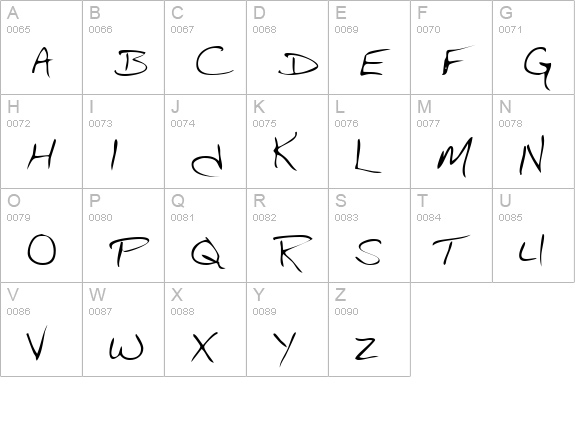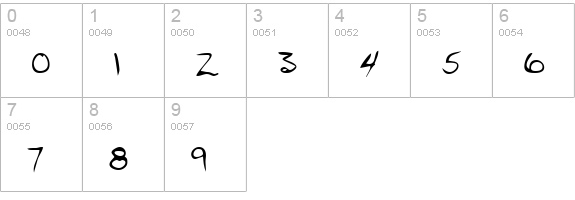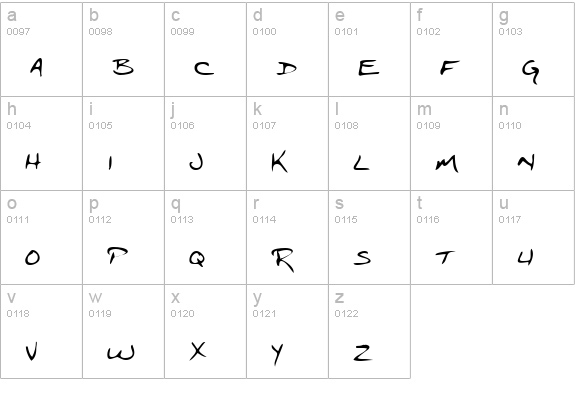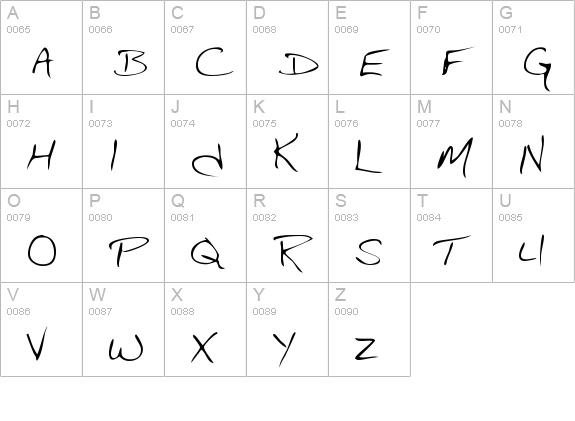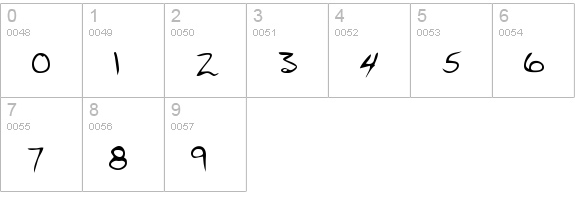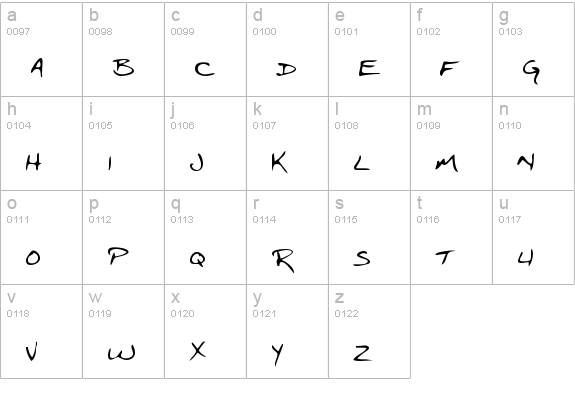
CartersHand Regular is the standard, neutral variant in the CartersHand typeface family \xE2\x80\x94 well suited to general body text, paragraphs, and standard typographic work.
CartersHand Regular is a charming and versatile font that exudes a sense of warmth and friendliness. With its handwritten style and smooth curves, this font is perfect for adding a personal touch to any project. Whether you're creating invitations, packaging, or branding materials, CartersHand Regular will bring a unique and inviting vibe to your designs. Best of all, CartersHand Regular is available for free download at FontsMarket.com. So, you can easily access this beautiful font and start using it in your projects right away. Don't miss out on the opportunity to enhance your designs with the delightful charm of CartersHand Regular!